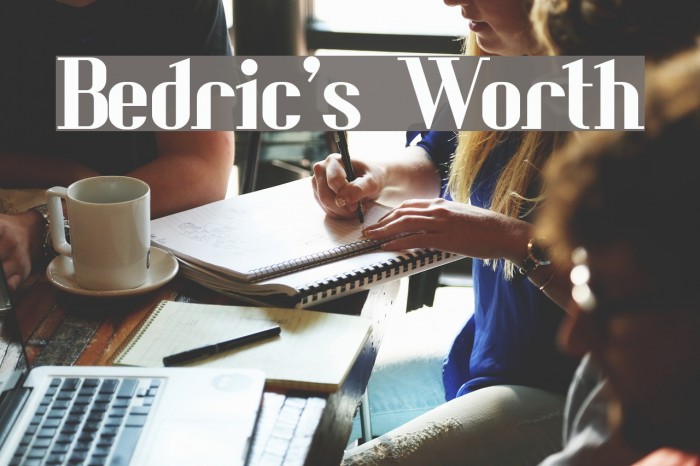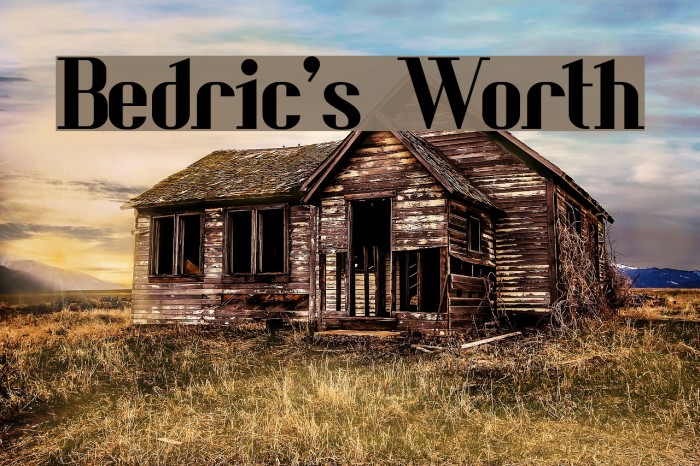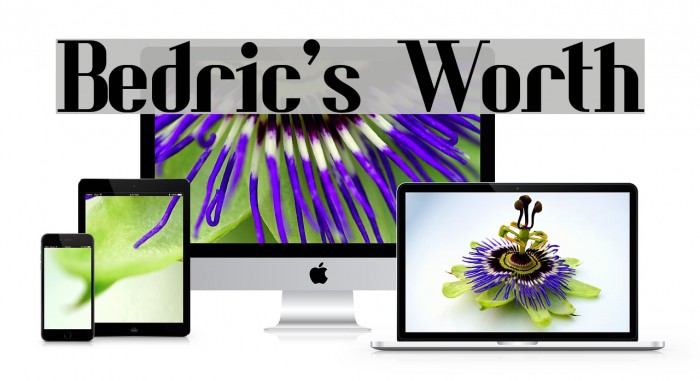
Bedric's Worth Font
This font exhibits a bold and striking design, characterized by its sharp, angular serifs and high contrast between thick and thin strokes. The uppercase letters are particularly distinctive, with a geometric flair that adds a modern touch. The lowercase letters maintain a consistent style, with unique curves and angles that complement the uppercase set. The numbers and special characters are designed to match the overall aesthetic, ensuring a cohesive look across all text. This font's dramatic style makes it ideal for attention-grabbing headlines and display purposes.
A bold, high-contrast serif font with sharp, angular features.